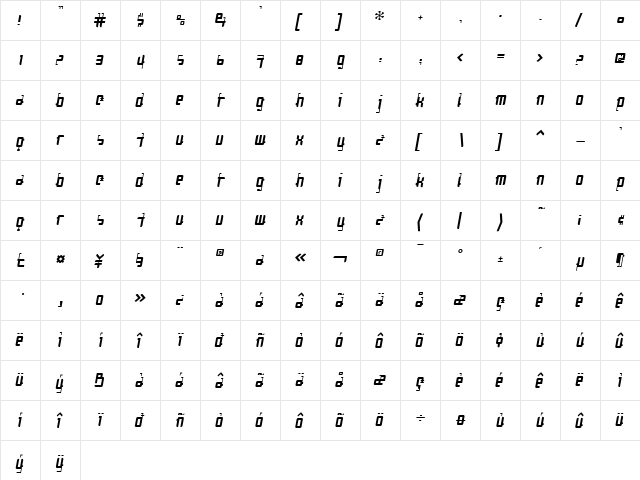
CallistoGravity Medium Italic
Design Context for CallistoGravity Typeface
CallistoGravity offers clean, dependable letterforms without strong stylistic allegiance, making it a practical choice for designers who need flexibility. Its italic angle brings a sense of urgency and motion to the letterforms.
Pro Tip: Use CallistoGravity for emphasis, pull quotes, and subheadings where its slanted energy can add rhythm to the layout.